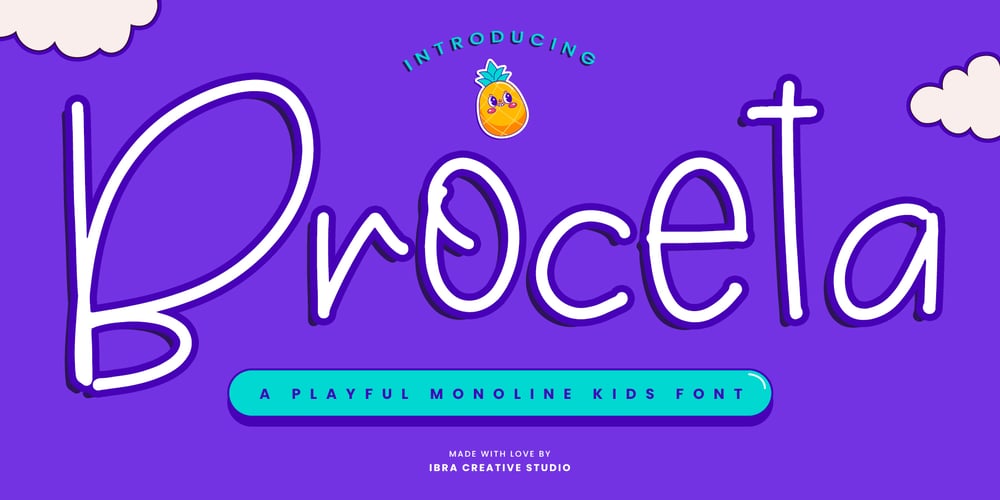
Broceta
Broceta font
Broceta Font Family was designed by Roisatul Azizah and published by IbraCreative. Broceta contains 1 styles and family package options. Broceta- A Playful Monoline Kids FontBroceta, a Playful Monoline kids font, exudes a whimsical charm that captivates the essence of youthful creativity. With its seamless monoline strokes, this font radiates a sense of simplicity and innocence, making it a perfect choice for projects targeting a younger audience. Broceta’s characters boast a delightful playfulness, each letter dancing with a unique flair that evokes the carefree spirit of childhood. The monoline design ensures a consistent and smooth visual flow, enhancing readability while maintaining an air of lightheartedness. Whether used in storybooks, playful branding, or educational materials, Broceta adds a touch of joy and imagination to any project, making it an enchanting font for those who seek to infuse their designs with a delightful sense of wonder.Broceta is perfect for branding projects, logo, wedding designs, social media posts, advertisements, product packaging, product designs, label, photography, watermark, invitation, stationery, game, fashion and any projects.Fonts include multilingual support for; Afrikaans, Albanian, Czech, Danish, Dutch, English, Estonian, Finnish, French, German, Hungarian, Italian, Latvian, Lithuanian, Norwegian, Polish, Portuguese, Slovak, Slovenian, Spanish, Swedish.